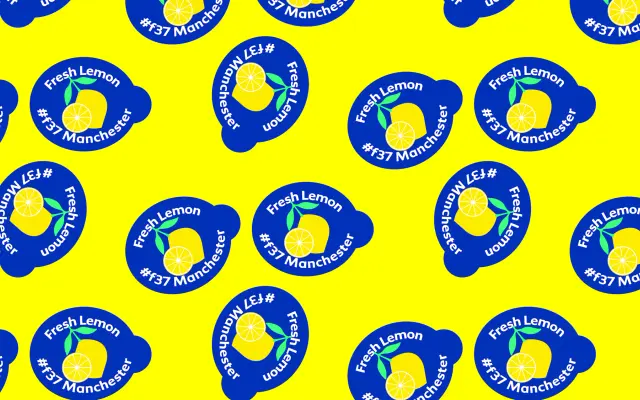
F37 Lemon
F37 Lemon specimen from F37 Foundry
A bright contemporary serif from F37, eight styles tuned for food, lifestyle and editorial work where you want zest without nostalgia.
F37 Lemon is a contemporary serif from F37, sold under a citrus theme that nods to its bright, juicy character. Eight styles run from Regular through Medium, Semibold and Bold with matching italics, with F37 pairing it on the page with F37 Zagma Serif, F37 Ginger Soft and F37 Qbik. Reach for it on recipe books, food packaging, magazine editorial and lifestyle identities that need a serif with a modern lift rather than a heritage cue.
F37 frame Lemon around citrus, juice and zest, presenting it as a fresh contemporary serif with eight styles from Regular to Bold and matching italics. The samples lean into food, recipe and editorial use cases.